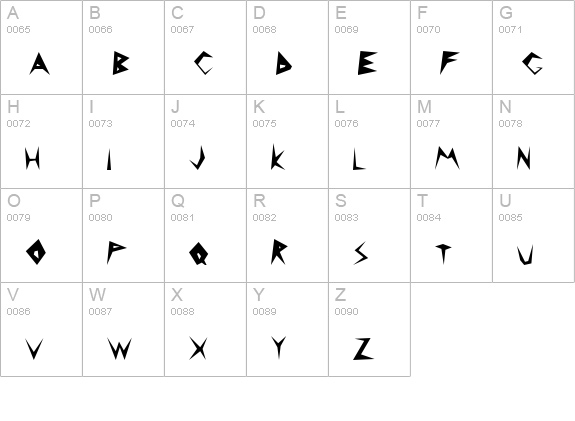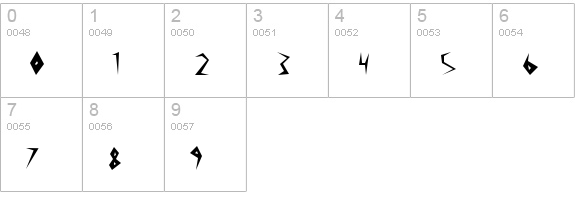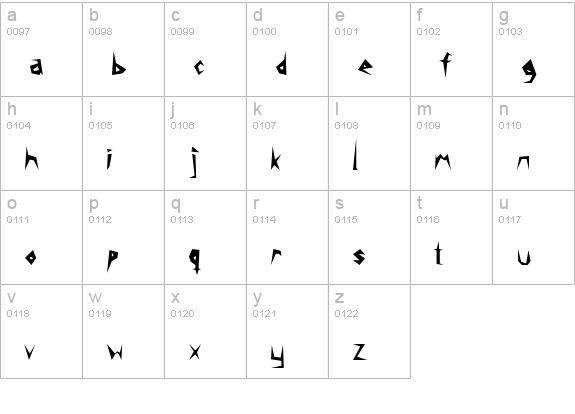
Below you can preview 14 minutes sharp in uppercase [A-Z], lowercase [a-z] and numbers [0-9]. You can also read the author's notes and license information before downloading.
14 Minutes Sharp Font is a sleek and modern typeface that exudes a sense of sophistication and professionalism. With its clean lines and sharp angles, this font is perfect for creating eye-catching designs for a wide range of projects. Whether you're working on a logo, poster, or website, 14 Minutes Sharp Font will help you make a lasting impression. Best of all, this font is available for free download at FontsMarket.com. So you can add this stylish font to your collection without breaking the bank. Don't miss out on the opportunity to elevate your designs with 14 Minutes Sharp Font - download it today and see the difference it can make!